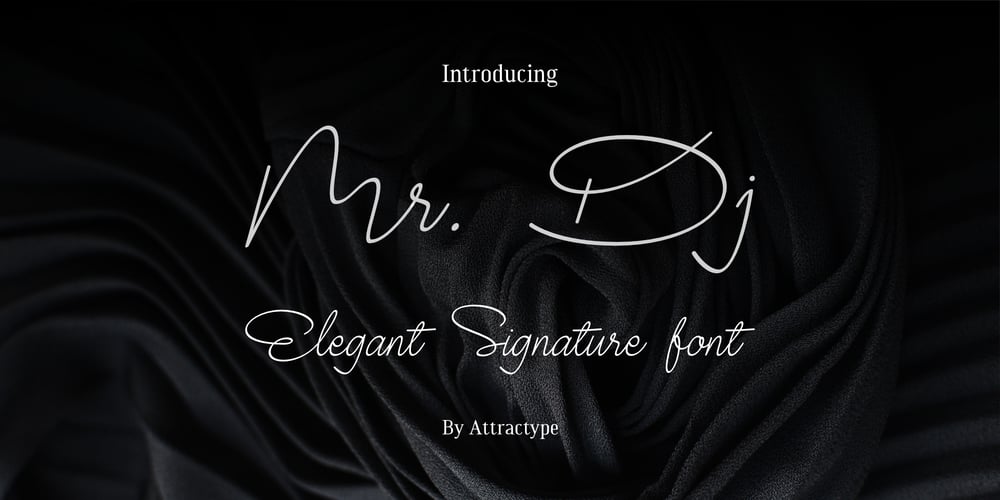
Mr Dj Signature Font Family was designed by Saefulloh and published by Attractype. Mr Dj Signature contains 2 styles and family package options. Mr. Dj Signature is a script typeface specially designed for signature fonts. With a balanced thickness, it is also suitable for various lettering purposes, such as greeting cards, invitations, branding, crafts, wedding decorations, even looks good for text.Mr. Dj Signature comes in two variants, regular appearing like calligraphy and monoline with the same line thickness. both are equipped with several ligatures, alternates and 3 signature swashes placed under the underline character (_) .Happy designing with Mr. Dj Signature.